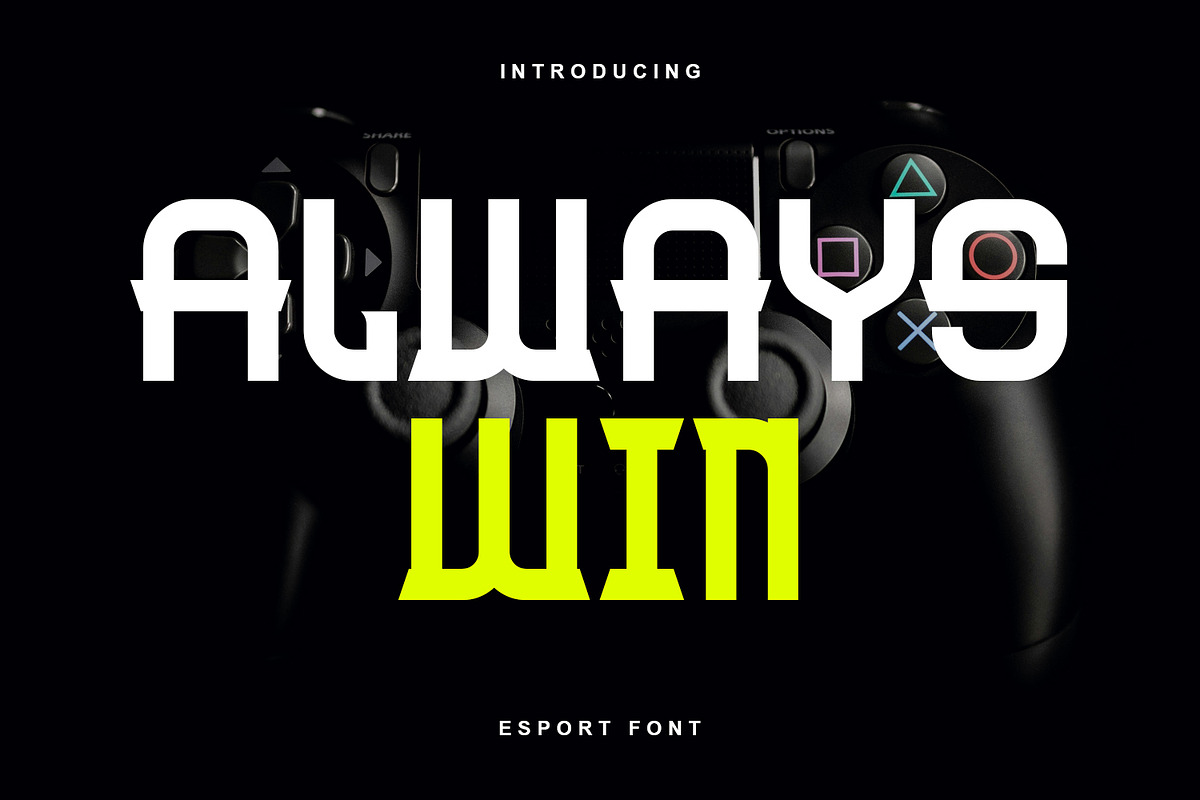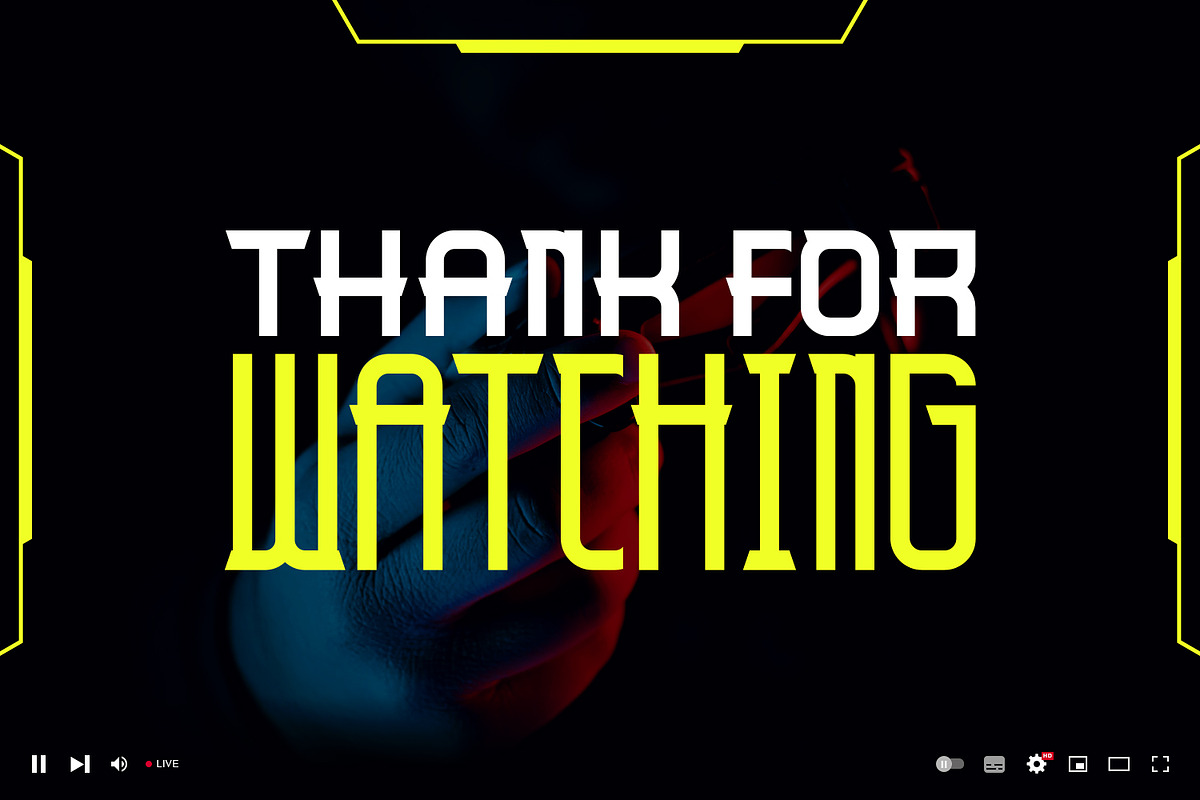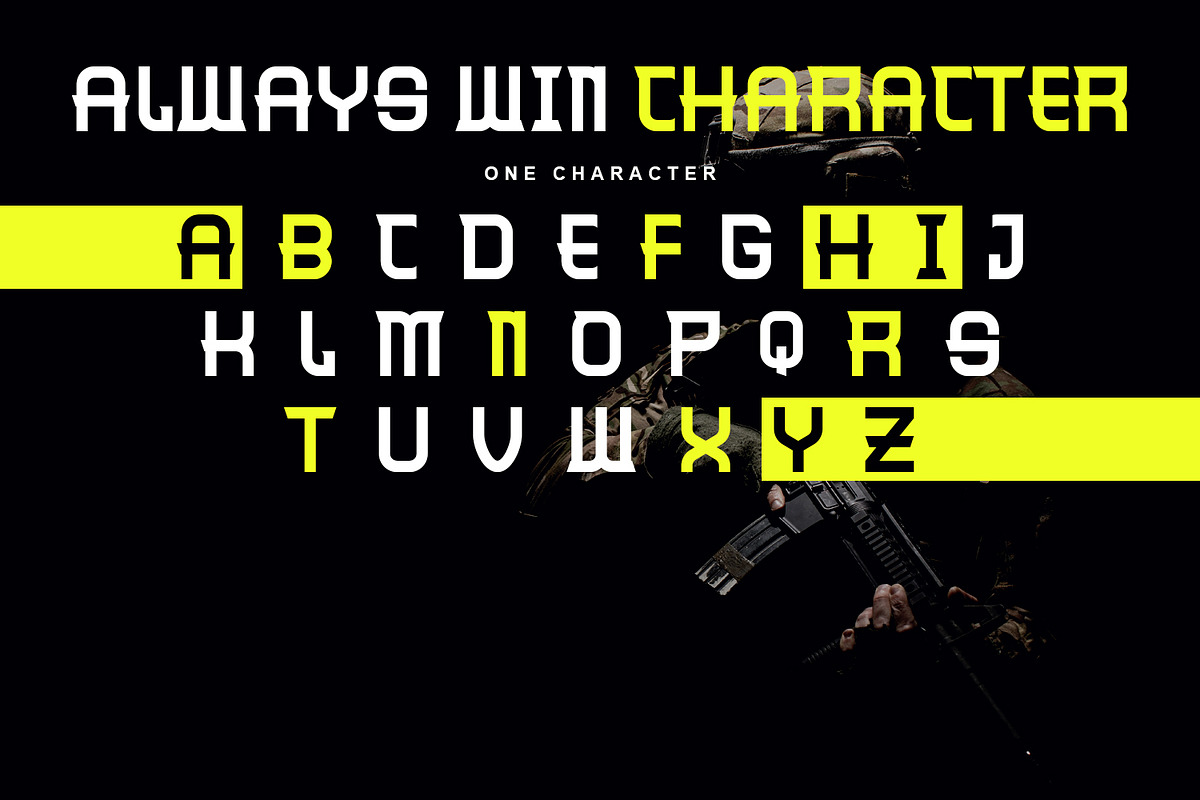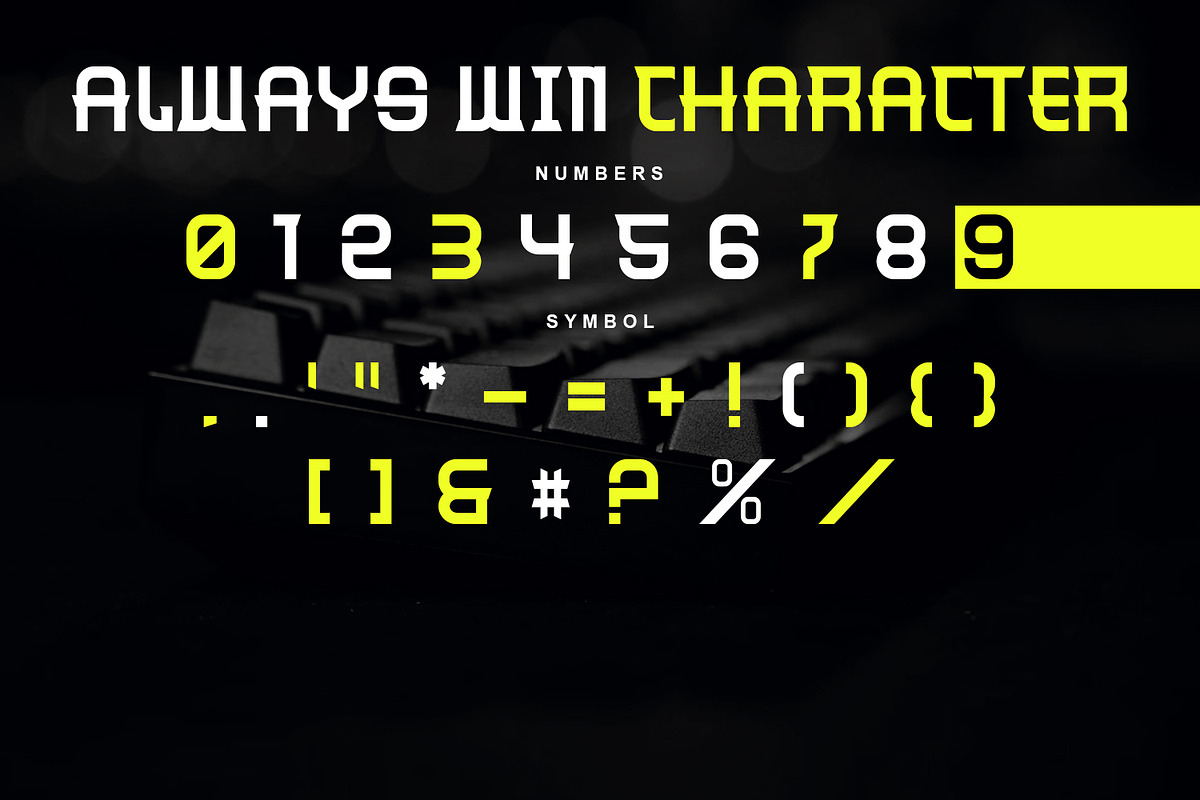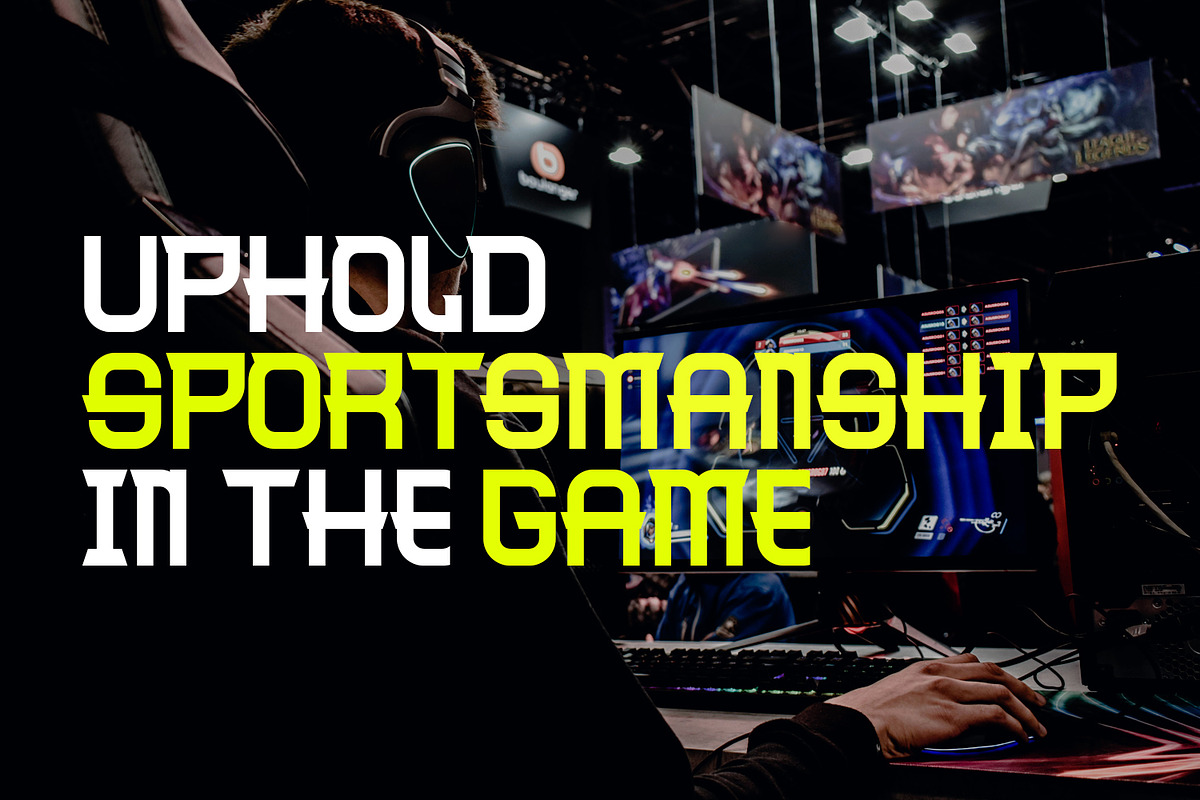
Always Win
Always Win - Esport Font
Always Win is a modern sans serif font designed specifically for the world of esports and competitive gaming. With a bold, clean, and characterful look, this font gives a strong, futuristic, and victorious impression, just like the soul of a true gamer.
This font is perfect for:
-Esports team logo
-Tournament poster
-Streaming overlays
-Gaming video title
-Merchandise such as jerseys or stickers